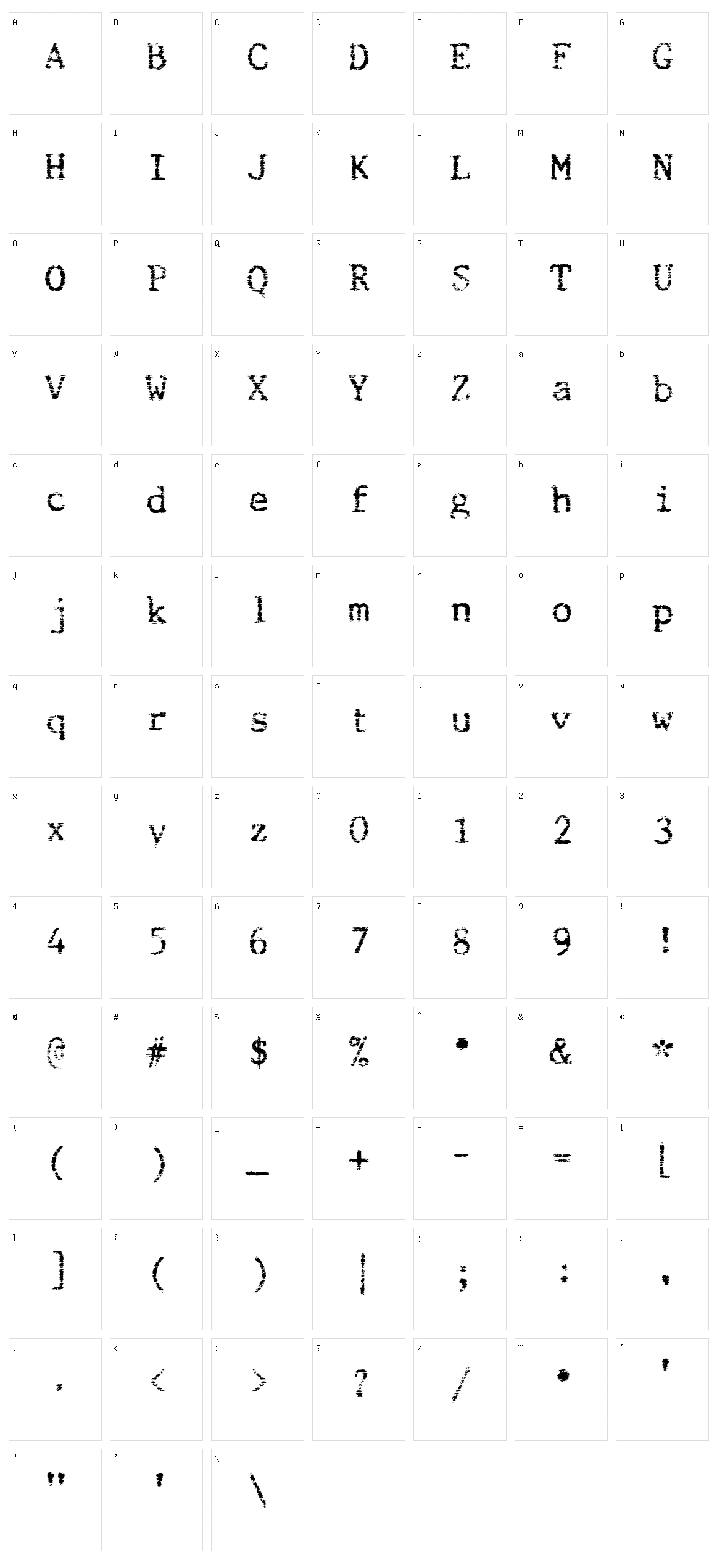
BECCARIA
A TrueType Font by S. John Ross
Working titles for this font were obvious things like "Crime Wave" and "Criminologist" and such along those lines. But then I decided it'd be cute to name it after somebody dead and latinate, which is common for serious typefaces but downright silly for a munged typewriter font. I like silly. Cesare Beccaria was an 18th-century Italian who wrote what is probably the first really important book on crime, see, so it all works together if you squint.
All that aside, I realized one day that I'd had fontmaking as a hobby for a couple of years now and still hadn't made any sort of typewriter font. Around the same time, I was doing a lot of work up at the public library downtown, including some typing, and Beccaria was born.
The ribbons on the library typewriters aren't THAT bad, of course; I exaggerated a little. But they're pretty rotten on some days! Since I built the font based on samples from a real typewriter, the character set is ALMOST a complete keyboard set - the couple of missing characters have been replaced by bullets.